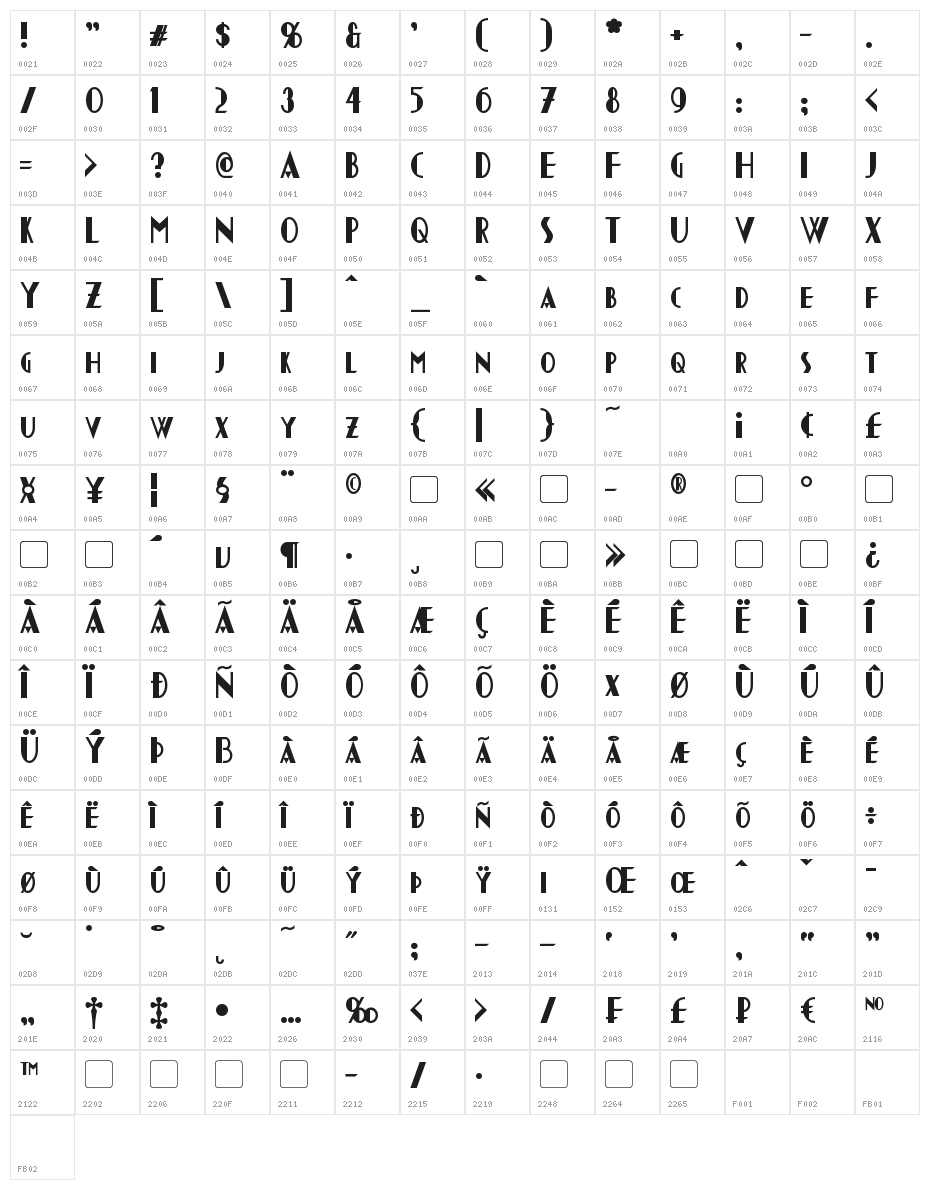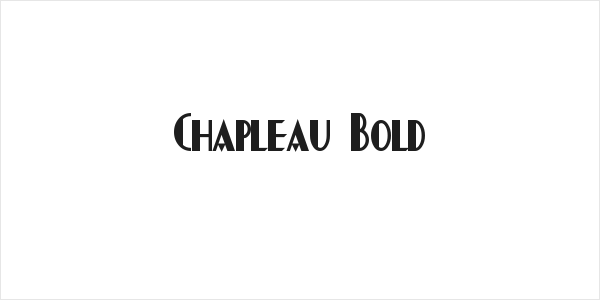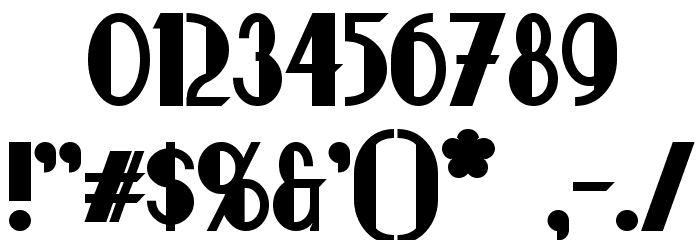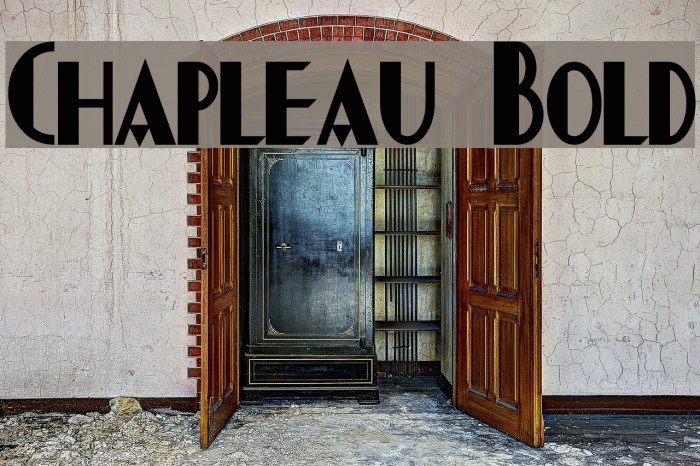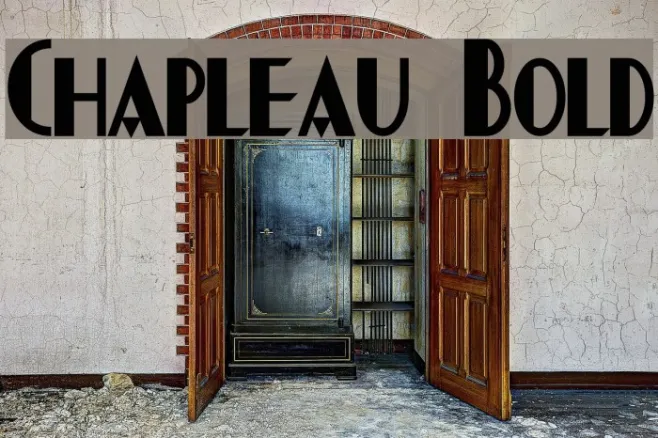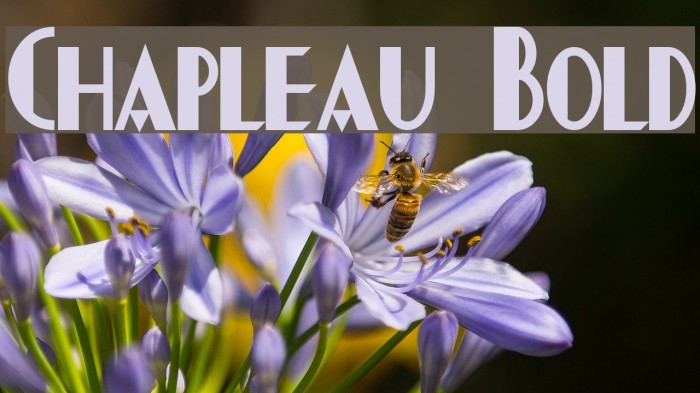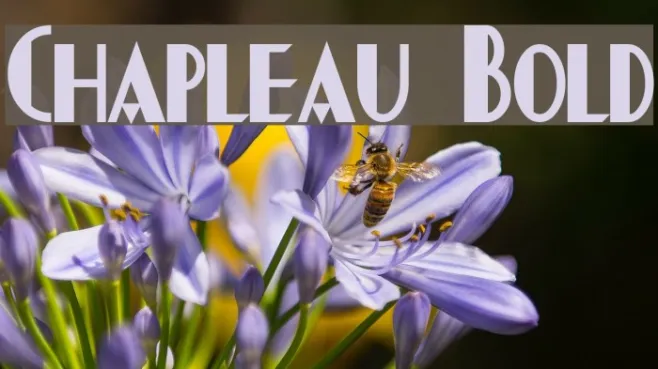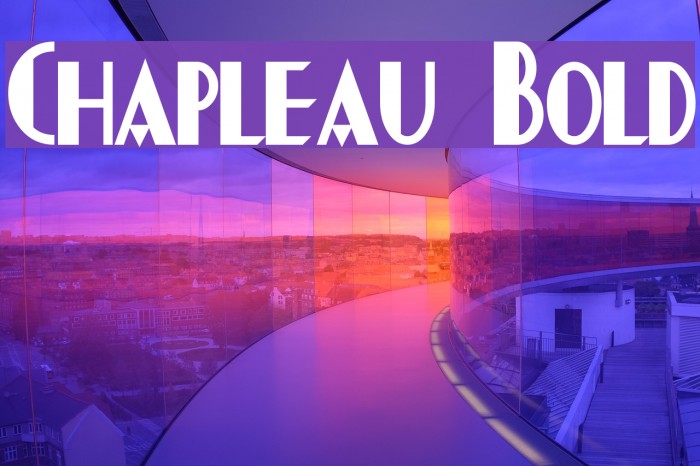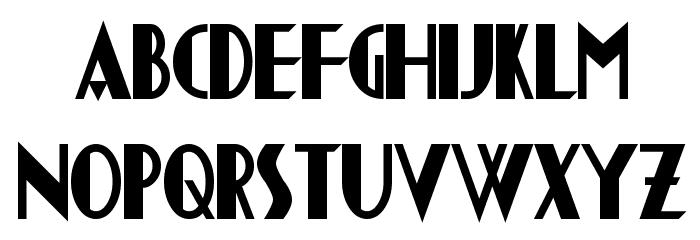
Chapleau Bold Font
Chapleau Bold Description
This font features a bold and striking design with sharp, angular edges and a geometric structure. The uppercase letters are particularly prominent, with a strong presence that commands attention. The characters have a consistent weight throughout, contributing to a uniform appearance. The numerals and special characters maintain the same boldness, ensuring a cohesive look across all elements. This font's unique style makes it ideal for projects that require a modern and impactful aesthetic.
| Proposed Projects | Ideal for branding, posters, headlines, and any design needing a bold, modern touch. |